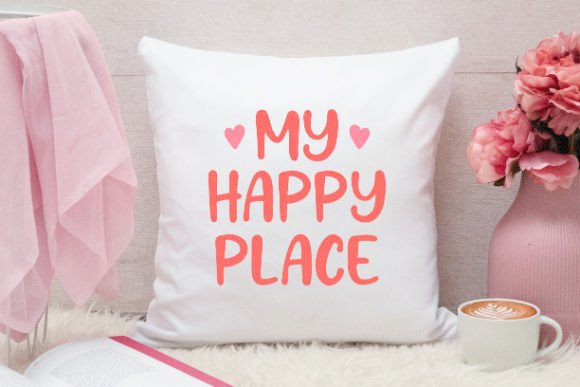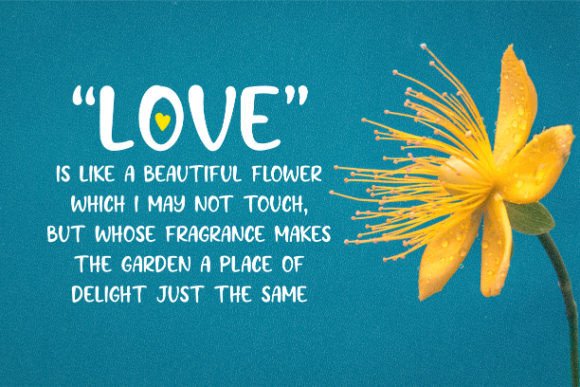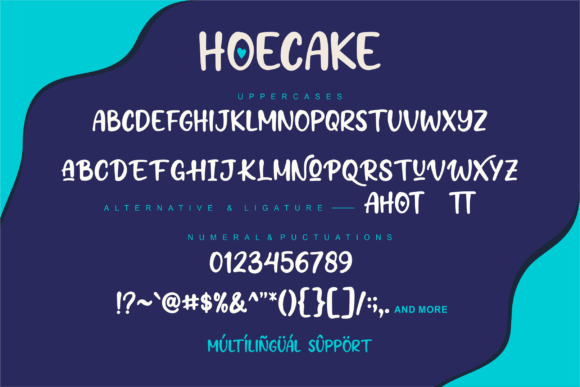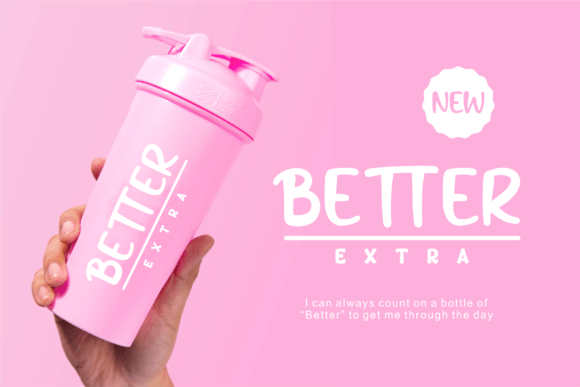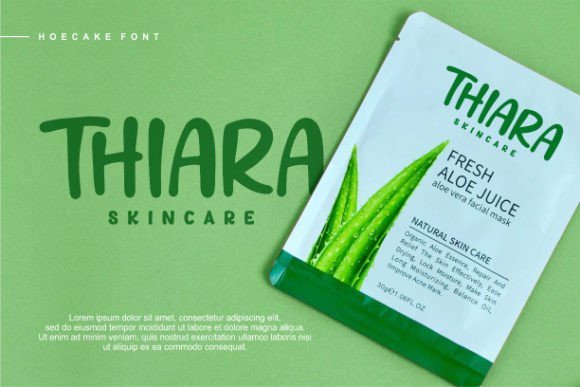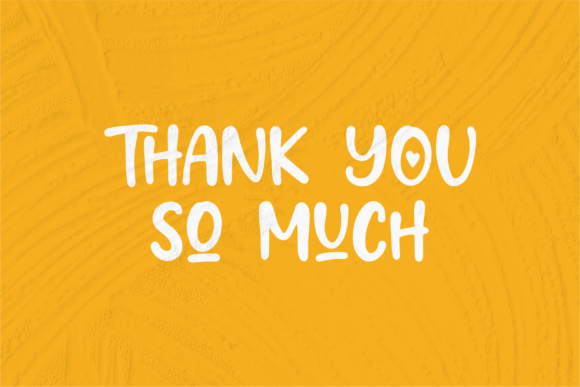
Introduction to Hoecake Font
Hoecake is a display font full of positivity and character.
A friendly typeface with charm and style This font is perfect for quotes, headings, logos, branding, merchandise, and websites.
Key Features of Hoecake Font